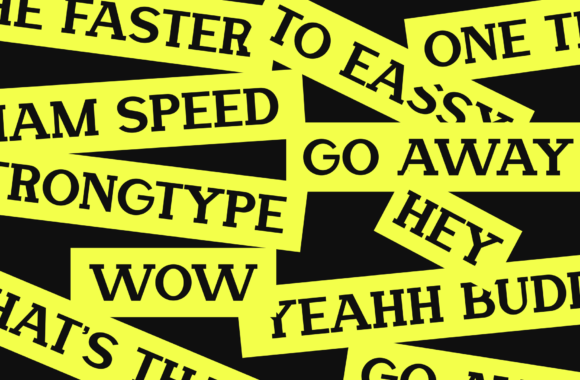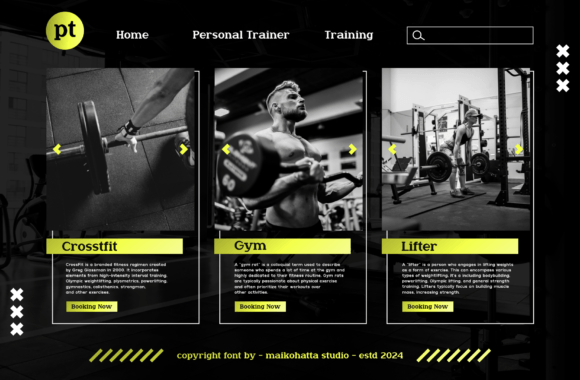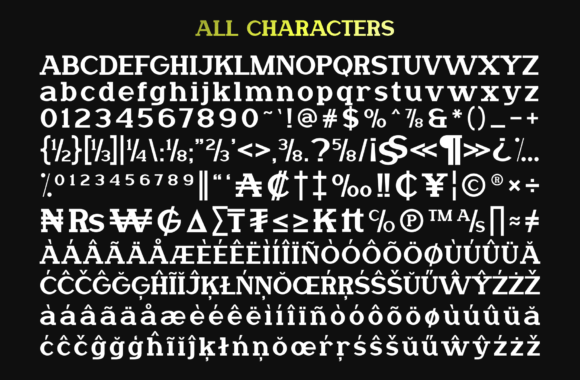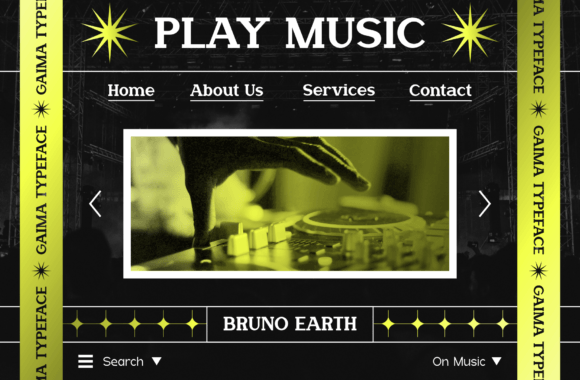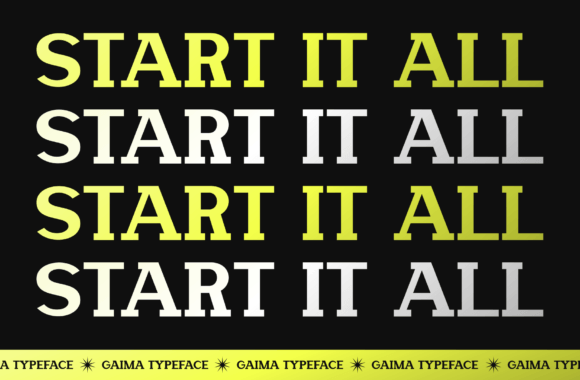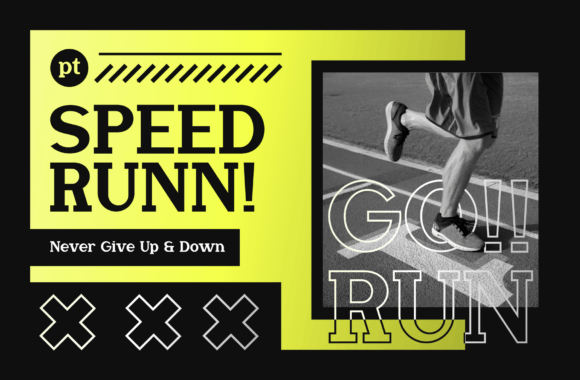
Introducing Gaima: The Modern Slab Serif Font That’s a Breath of Fresh Air
Have you ever been in the middle of a design project, and suddenly, you’re stuck on finding the perfect font? I recall a recent experience where I was working on a children’s book design project, and my client specifically asked for a font that would convey a sense of playfulness and fun. After scouring through numerous font libraries, I stumbled upon **Gaima**, a modern slab serif font that instantly resonated with the project’s vibe. In this article, I’ll share my journey with Gaima, its features, and how you can make the most of it in your designs.
What Makes Gaima Special?
Gaima is characterized by its unique blend of modern slab serif and handwritten elements, often found in comics or cartoons. This font is perfect for projects that want to highlight elements of playfulness and fun, such as poster designs, invitation cards, comics, or promotional materials aimed at a younger audience or those looking for a fun feel.
An Honest Review of Gaima
- ✨ Unique and Playful Design: Gaima’s design is truly one-of-a-kind, making it perfect for projects that need a distinctive touch.
- ✅ Highly Versatile: This font can be used for a wide range of projects, from children’s books to posters and invitations.
- 💡 Instant Recognition: Gaima’s playful design ensures that your project will stand out and grab attention.
While Gaima is an excellent font, there are a few things to keep in mind:
- ⚠️ Legibility at Small Sizes: Like many slab serif fonts, Gaima can be a bit tricky to read at very small sizes. It’s best used at larger sizes where its unique features can shine.
- 🤔 Pairing with Other Fonts: Gaima’s bold personality means it can be a bit challenging to pair with other fonts. It’s best to stick with simple, clean fonts to avoid visual overload.
A Practical Guide to Using Gaima
The Backstory Behind Gaima
Gaima was inspired by the whimsical world of comics and cartoons. Its designer aimed to create a font that would bring joy and cheerfulness to any project. The result is a font that’s both modern and playful, perfect for designers looking to add a touch of fun to their work.
Q: What type of projects is Gaima best suited for?
A: Gaima is perfect for projects that require a playful and fun feel, such as children’s books, poster designs, invitation cards, and promotional materials.
Q: Is Gaima easy to read?
A: Gaima is designed to be legible, but like many slab serif fonts, it can be challenging to read at very small sizes. It’s best used at larger sizes where its unique features can shine.